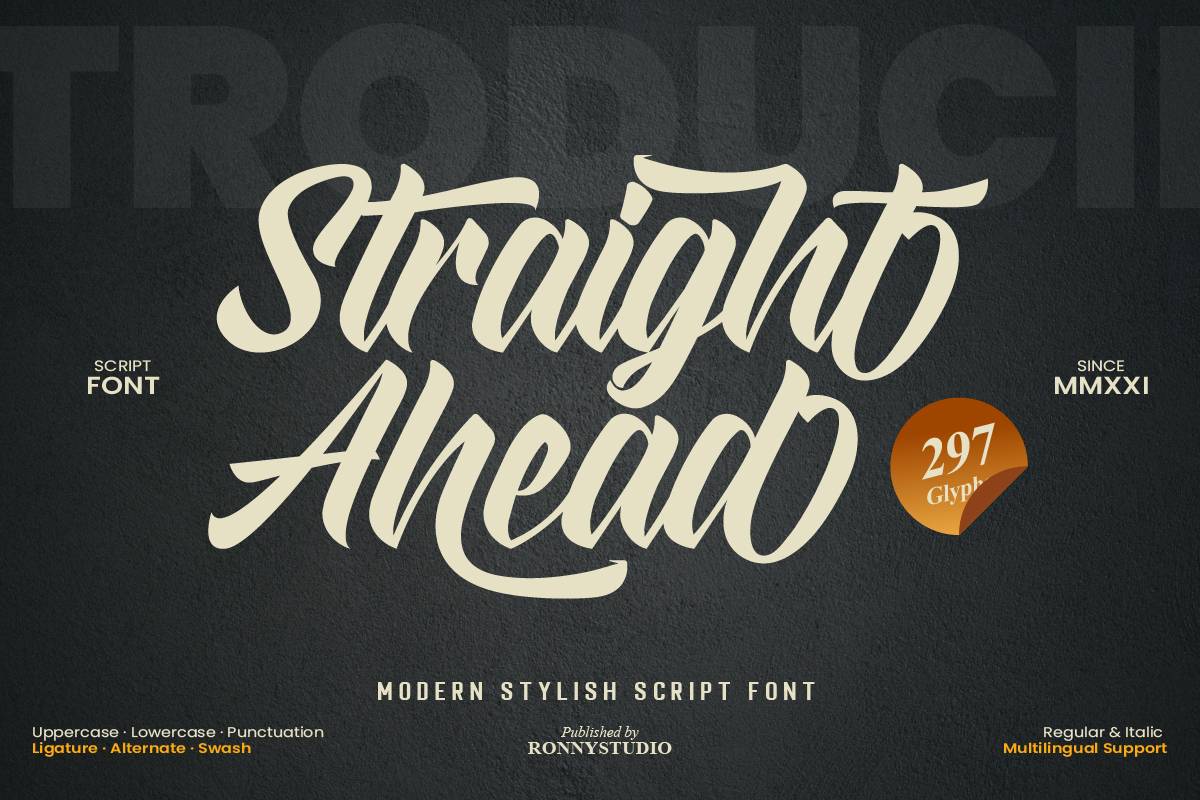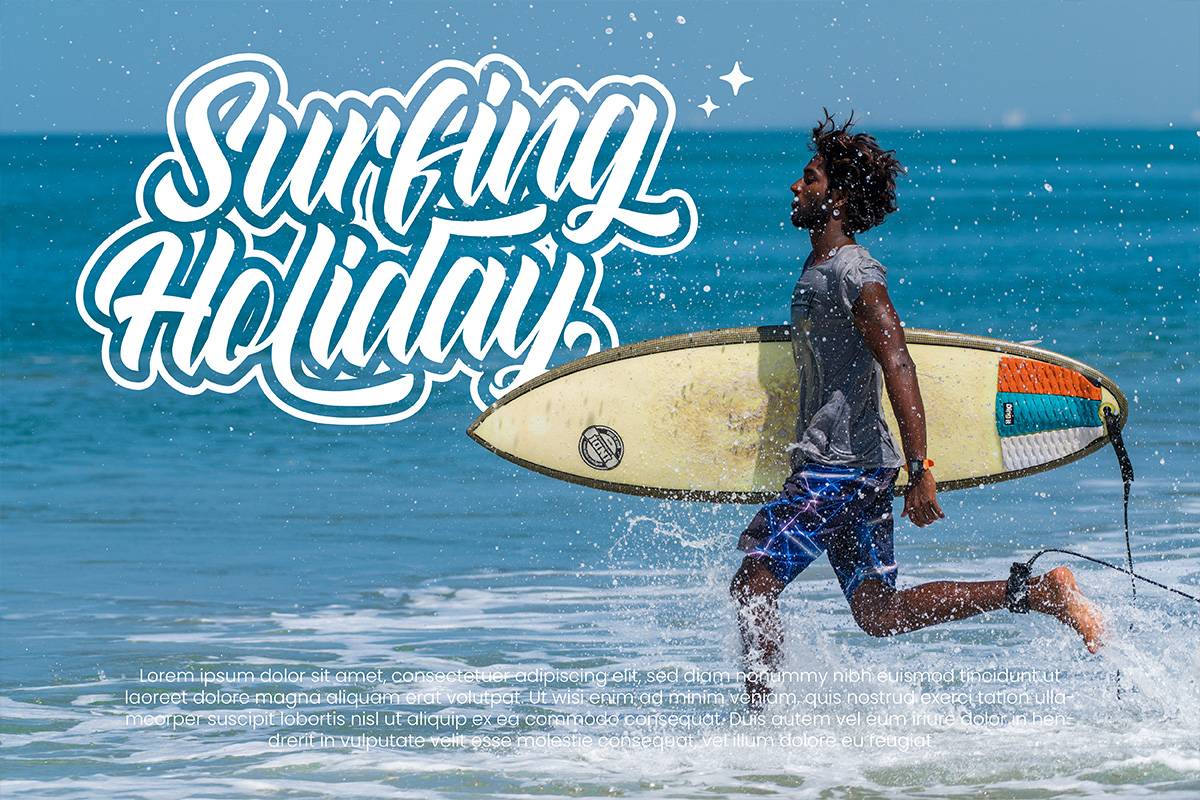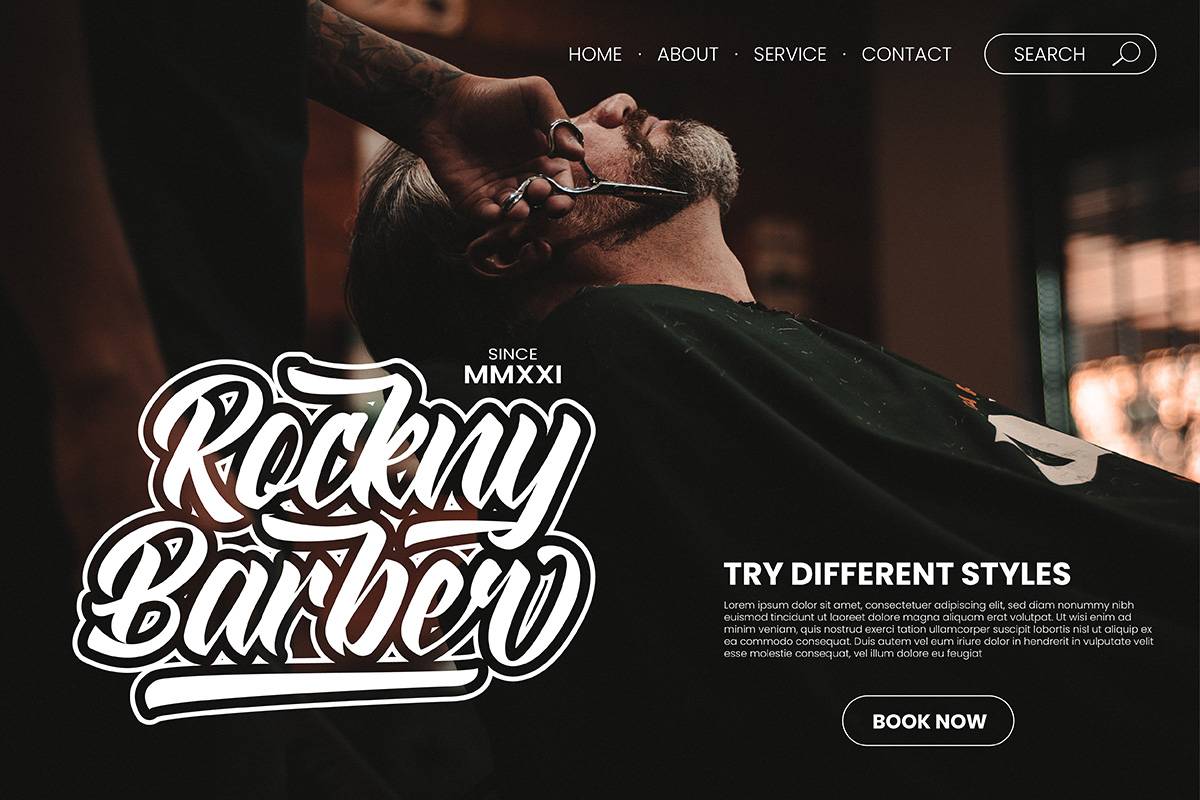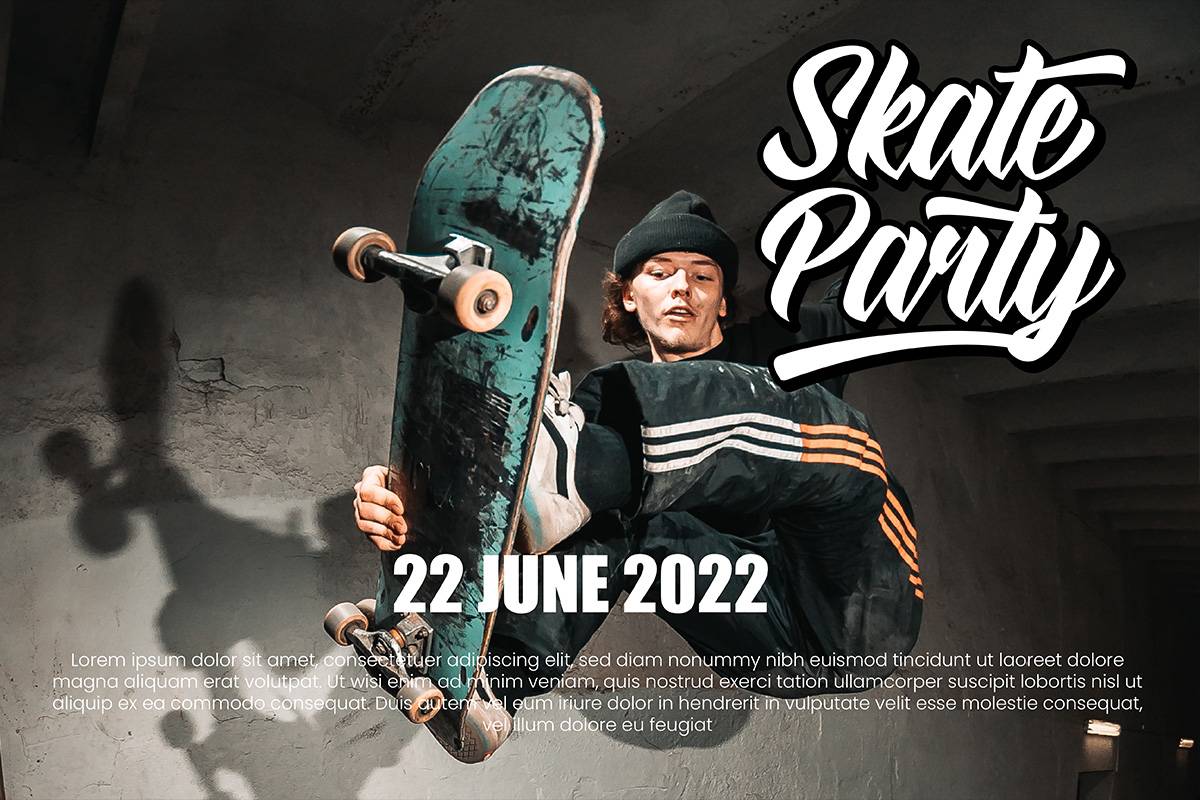
Straight Ahead is a bold and lively script font with a smooth, slightly angled flow that captures a friendly and energetic vibe. Its cursive letterforms feature high contrast strokes and rounded edges, making it ideal for eye-catching headlines, logos, and creative branding that want to convey a sense of movement and personality. This font works wonderfully in projects seeking a modern yet approachable handwritten style.
Straight Ahead Font